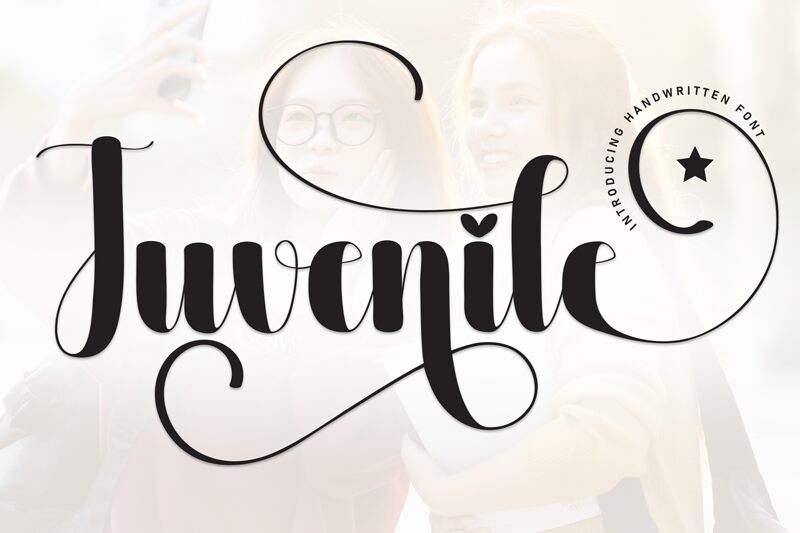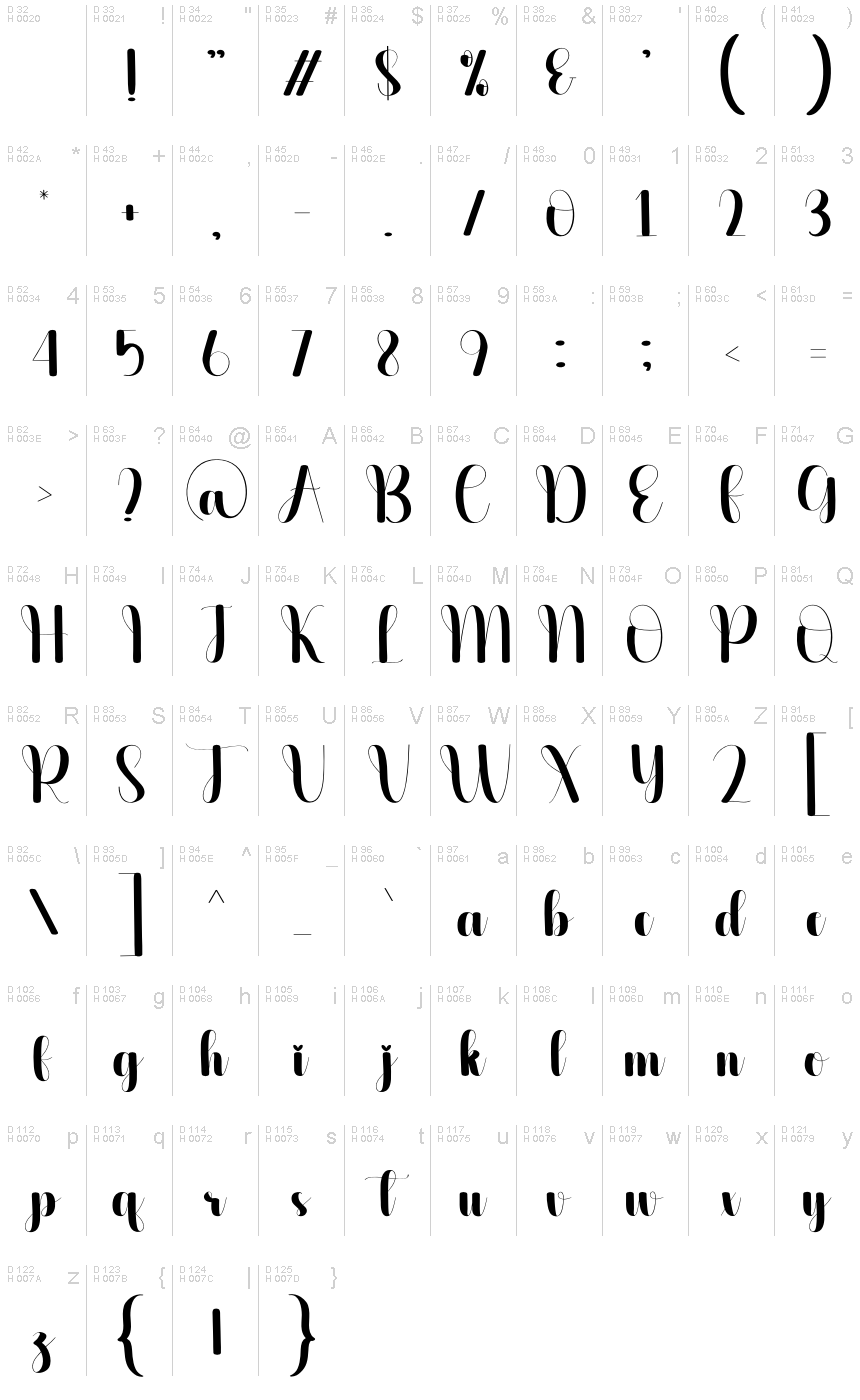
Juvenile
Juvenile font by Scratchones is a bold free calligraphy brush font with a playful mood and elegant script style. Slightly whimsical thanks to ornamental elements and smooth lines, it balances thick, flowing curves with thin contrasts for decorative lettering. With an overall juvenile feel (no pun intended), the characters carry whimsical flourishes that make the typeface extra special.
Suitable for marketing and branding designs in general, Juvenile will read beautifully on logo designs, package labels, poster titles, headlines and headers on websites. Use it without restriction for book covers; white papers; magazine designs; social media posts; headings in newspapers or school bulletins among many other ideas.